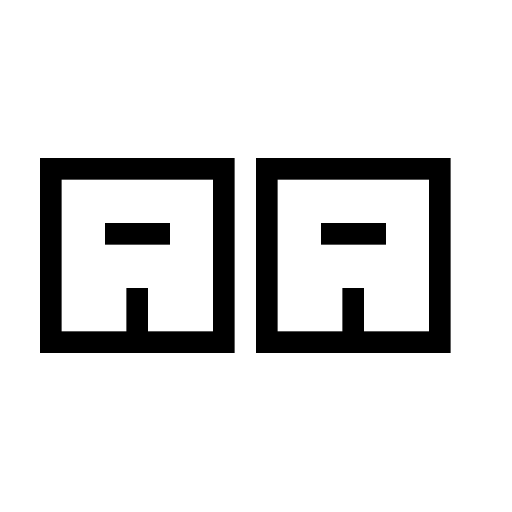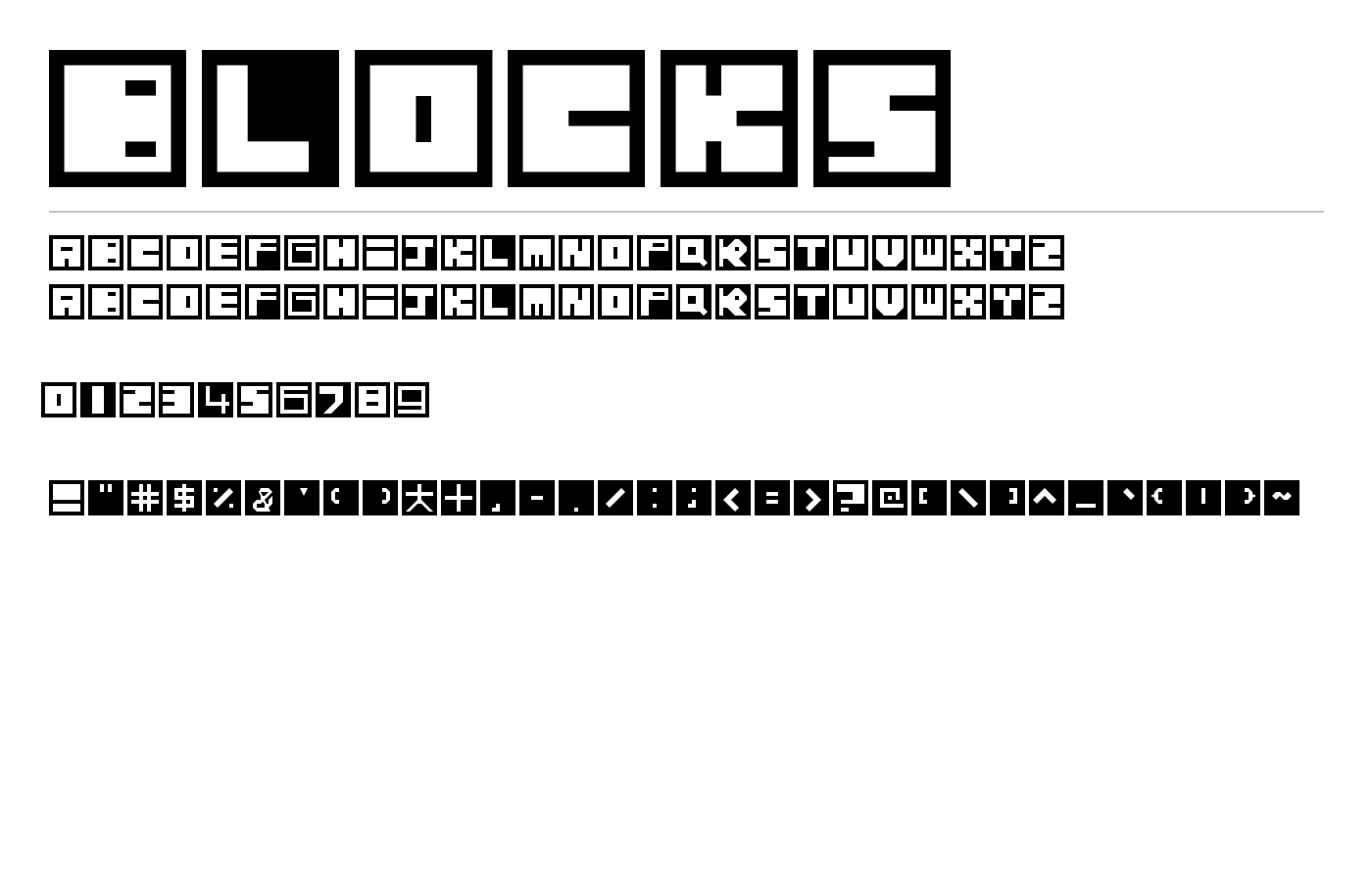
Blocks Font is a bold, geometric sans serif typeface characterized by its distinct modular, block-like letterforms enclosed in square outlines. With a consistent stroke weight and low contrast, it delivers a modern, playful feel that works well for eye-catching headlines, logos, and digital designs that require a tech-savvy or retro video game vibe. Its unique, grid-based structure makes it ideal for creative branding and display purposes where a strong, structured presence is desired.
Blocks Font
About Blocks Font
| Font family | Blocks Font |
| Designer | fly half boy |